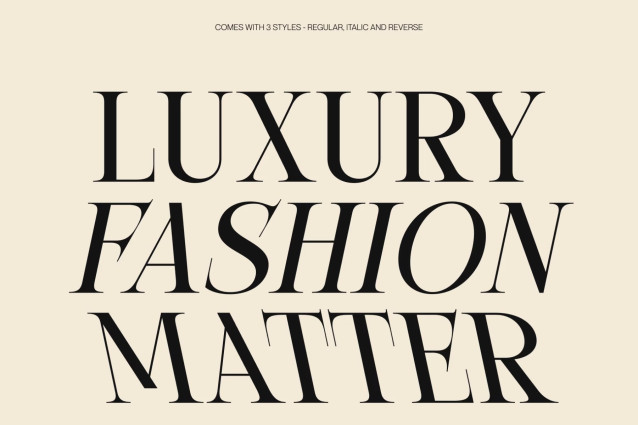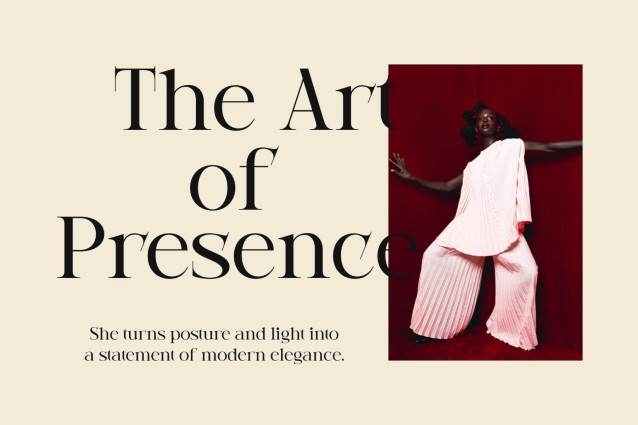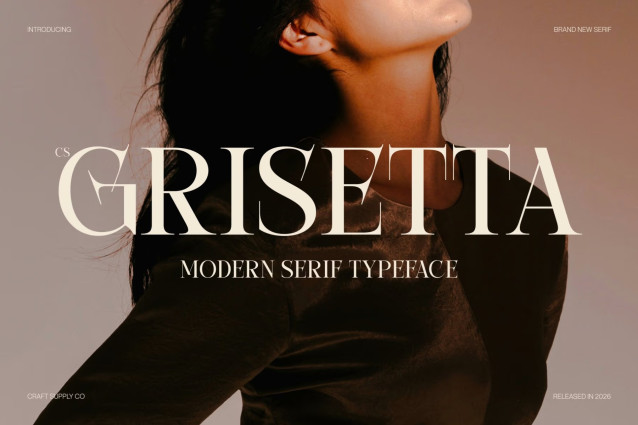
CS Grisetta – Modern Serif Font: Where Refined Elegance Meets Contemporary Sophistication
Sharp Angles and Elongated Serif Details
This is a modern serif font distinguished by its sharp angles, slim proportions, and elegantly elongated serifs. These refined design elements create a sophisticated visual identity that feels graceful, polished, and distinctly contemporary. The font’s delicate balance of structure and elegance gives it a timeless appeal while maintaining a fresh, modern presence.
Elegant Proportions with Professional Presence
This font combines slender letterforms with carefully crafted details that enhance readability and visual harmony. Its refined silhouette creates a sense of luxury and confidence, making it ideal for projects that require a premium and distinguished typographic voice.
Contemporary Style with Timeless Appeal
This font delivers a typographic identity that feels stylish, versatile, and enduring. Its graceful forms and clean execution make it suitable for both editorial compositions and high-end branding, offering a perfect balance between tradition and contemporary design.